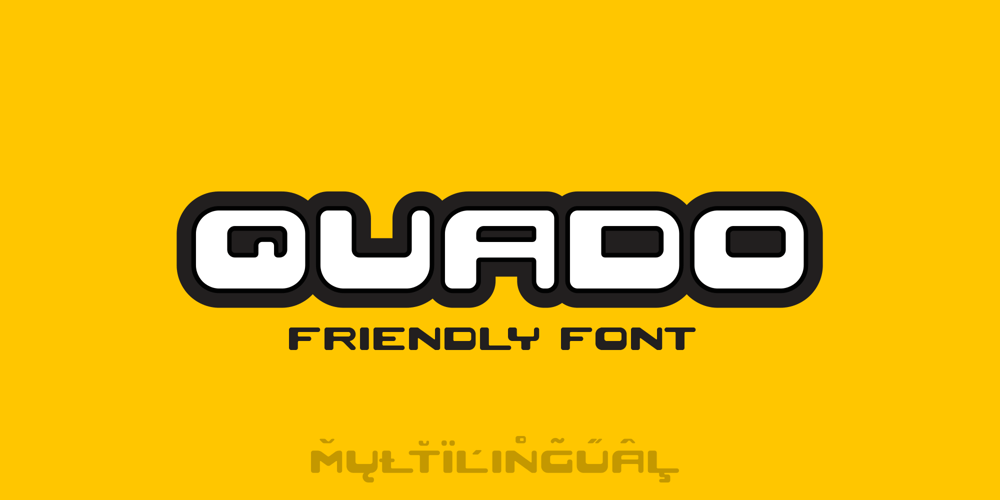
Quado Font Family was designed by Roland Hüse and published by Sentavio. Quado contains 1 styles and family package options. Quado is friendly style font designed for such areas as Entertainment, Techno, Games & Applications etc. with Multilingual support (Latin Extended).Please see the preview images to see how it works.